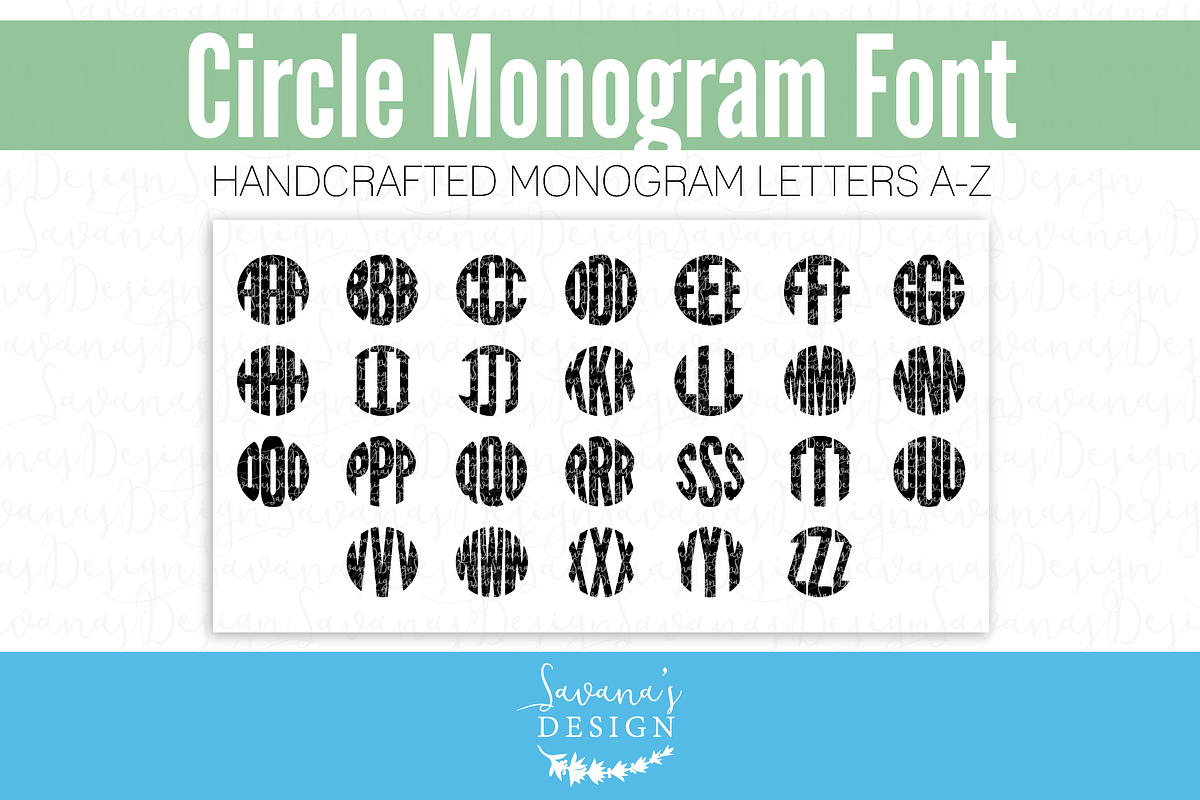
Monogram Font TTF OTF Circular Free Download is a stylish and versatile typeface perfect for creating elegant and personalized monograms. With its clean, circular design, this font is ideal for logos, custom branding, invitations, wedding stationery, and anything that requires a sophisticated, balanced look.
Whether you're creating a luxury brand, designing a personalized gift, or adding a sleek touch to a wedding invitation, this font provides the flexibility and elegance you need. Its circular structure brings harmony and readability to your designs, making it suitable for both large-scale logos and smaller, delicate details.